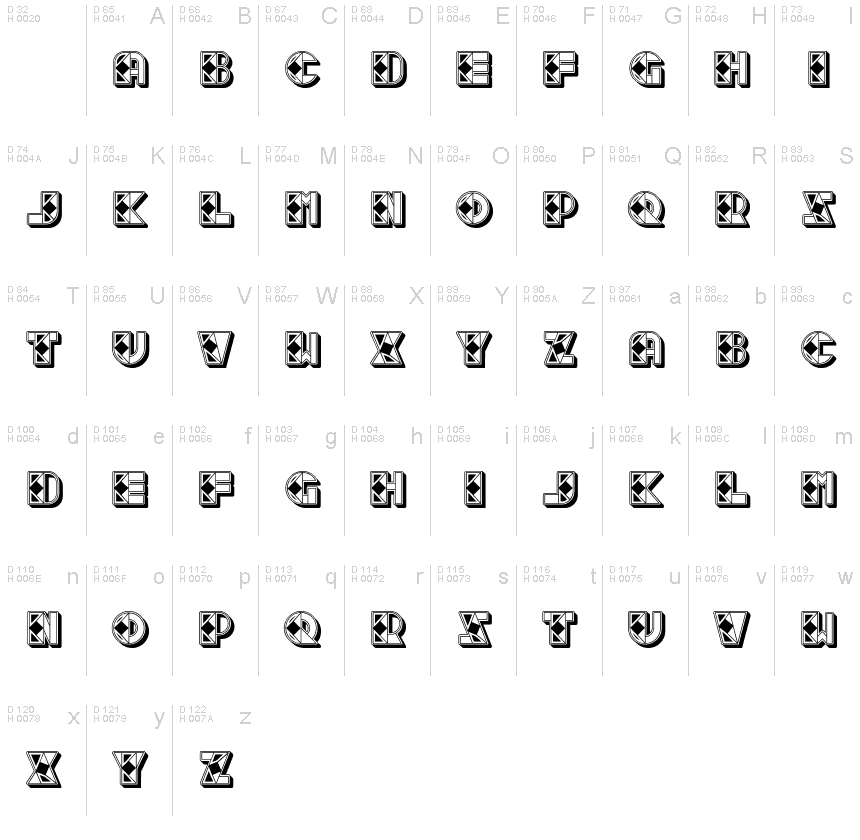
Spelling Extravagant Regular
Spelling Extravagant font is a bold decorative typeface designed by Vladimir Nikolic.
"Spelling" comes in Regular, Extravagant and Filled variant!
Spelling Extravagant